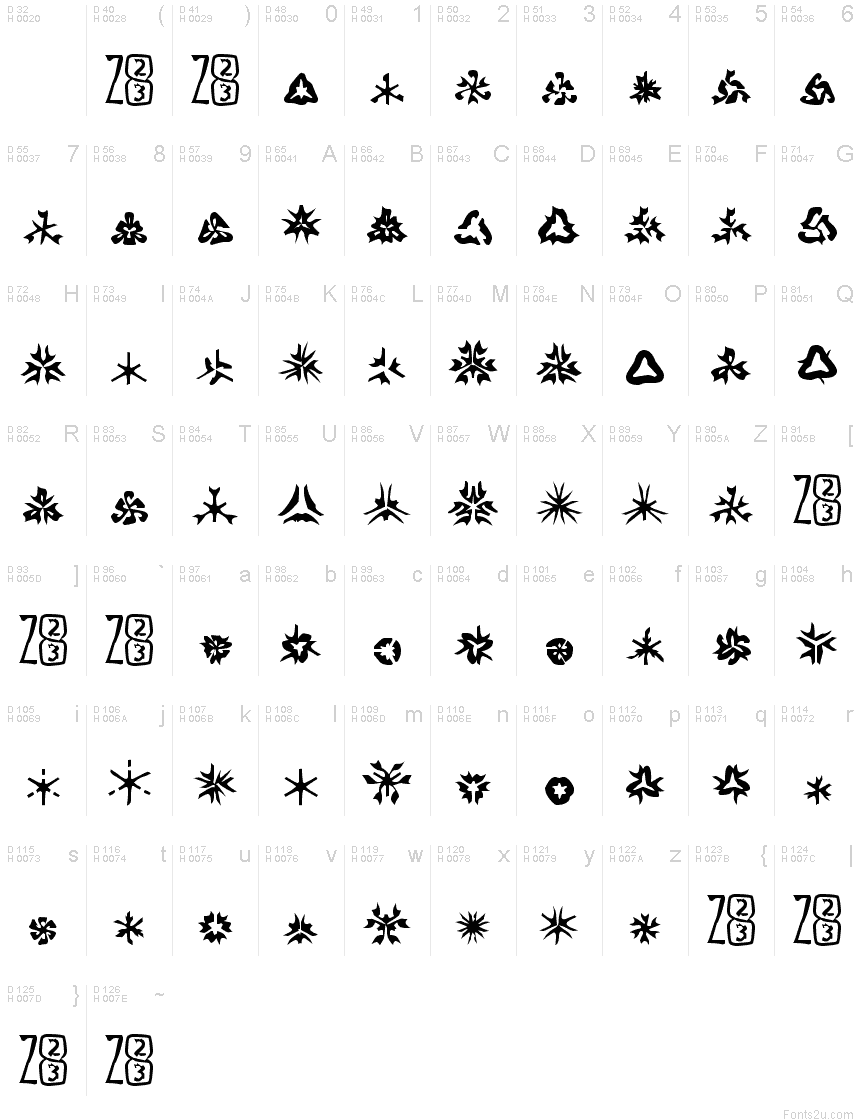
Zone23_foopy1
Zone23 Foopy1 font by Zone23 is a free decorative dingbat typeface. Its inky, blobby starbursts and abstract floral shapes feel hand-cut, like paper silhouettes pulled straight from a sketchbook. The forms swing between sharp hooks and soft, rounded blobs, giving each symbol a wild, organic rhythm that instantly adds attitude to any layout.
Using Zone23 Foopy1, you can drop these icons into gig posters, zines, experimental branding, stickers, packaging, or digital collages to create bold visual punctuation without using a single word. This free font also works beautifully as background pattern elements or oversized graphic “buttons” in social posts. Try pairing it with a clean geometric sans at smaller sizes, and let Zone23 Foopy1 explode in larger spots to carry the visual energy.